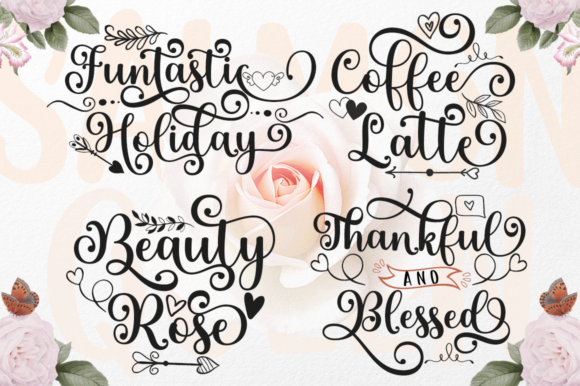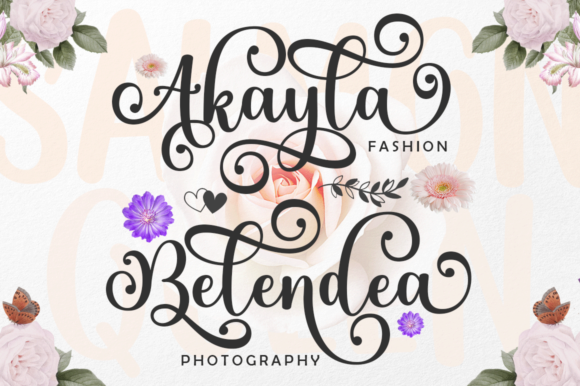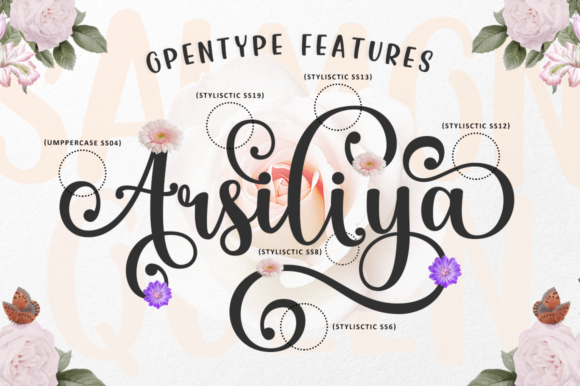
Introduction to Salmon Queen Duo Font
As a designer, there’s nothing quite like the thrill of bringing a creative project to life. You’ve poured your heart and soul into it, and the final result is nothing short of breathtaking. But have you ever found yourself searching for the perfect font to tie everything together? That’s where the Salmon Queen Duo Font comes in – a stunning duo font that’s sure to elevate your designs to the next level.
With its trendy and stylish script and sans serif combination, the Salmon Queen Duo Font is the perfect addition to any design resource. Whether you’re working on a free download or a high-quality commercial project, this font is sure to make a statement. Plus, with its PUA encoding, you’ll have access to all the glyphs and swashes you need to add that extra special touch.
Key Features of Salmon Queen Duo Font
- Unique Design: The Salmon Queen Duo Font is a stylish, elegant font designed specifically for creative projects that require a touch of sophistication.
- High-Quality Design Resource: This font is a valuable addition to any designer’s toolkit, offering a wide range of applications from branding to editorial content.
Honest Review: Salmon Queen Duo Font
I recently had the chance to work with the Salmon Queen Duo Font, and I’m excited to share my honest thoughts on this design resource. Overall, I was impressed with its unique style and versatility.
- ✨ Unique design aesthetic that sets it apart from other fonts
- ✨ High quality design with clear, crisp lines
- ⚠️ Limited character set, which may not be suitable for long-form text
- ⚠️ Some users may find the font too bold or overpowering for certain creative projects
Overall, I’m impressed with the Salmon Queen Duo Font’s potential for adding a unique touch to creative projects. With its free download option and high-quality design, it’s definitely worth considering for designers looking for a distinctive design resource.
The Salmon Queen Duo Font is perfect for various design projects, including social media graphics, presentations, logos, brochures, and posters. It’s also great for personal and professional projects that require a high-quality, creative font.
To get the most out of the Salmon Queen Duo Font, experiment with different font sizes, colors, and combinations. You can also use the font’s transparent background to create unique and eye-catching designs. Don’t be afraid to try new things and push the limits of what’s possible with this versatile font.
Alternatives to Salmon Queen Duo Font
Pacifico is a beautiful, elegant script font ideal for creative projects that require a touch of sophistication. This font is perfect for designing wedding invitations, branding, and packaging. It features a high-quality, smooth design that is easily readable on both light and dark backgrounds.
Pacifico is a great alternative to Salmon Queen Duo Font for designers who want a more refined and polished look. While Salmon Queen Duo Font has a more playful and quirky feel, Pacifico offers a more sophisticated and elegant design. Pacifico is available for free download and features a transparent background, making it a great resource for designers.